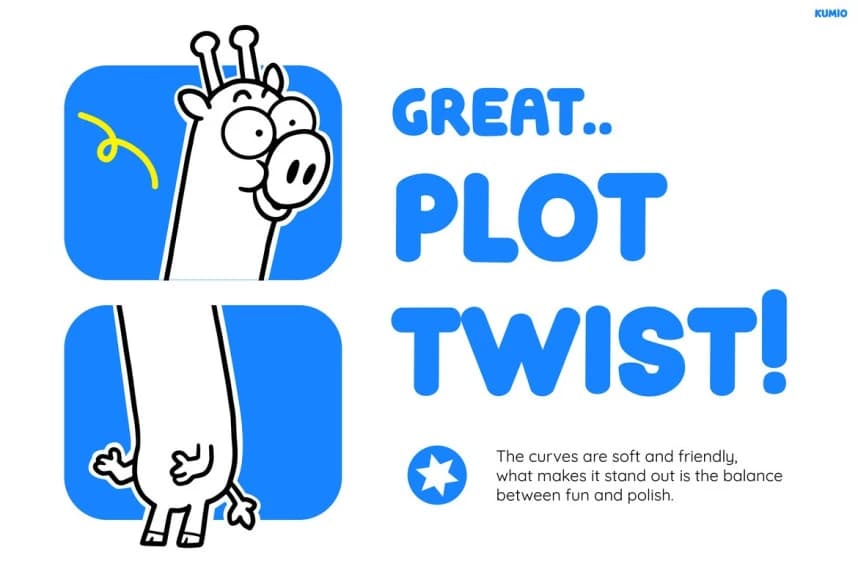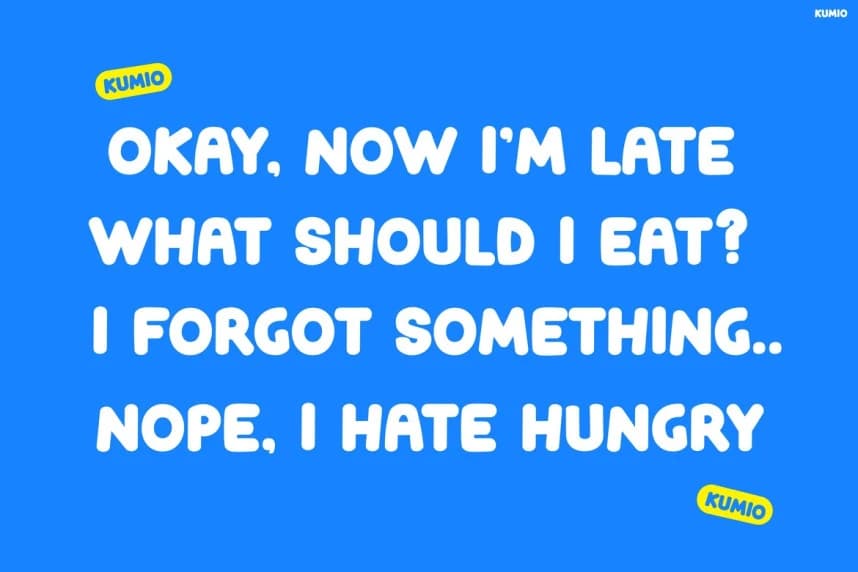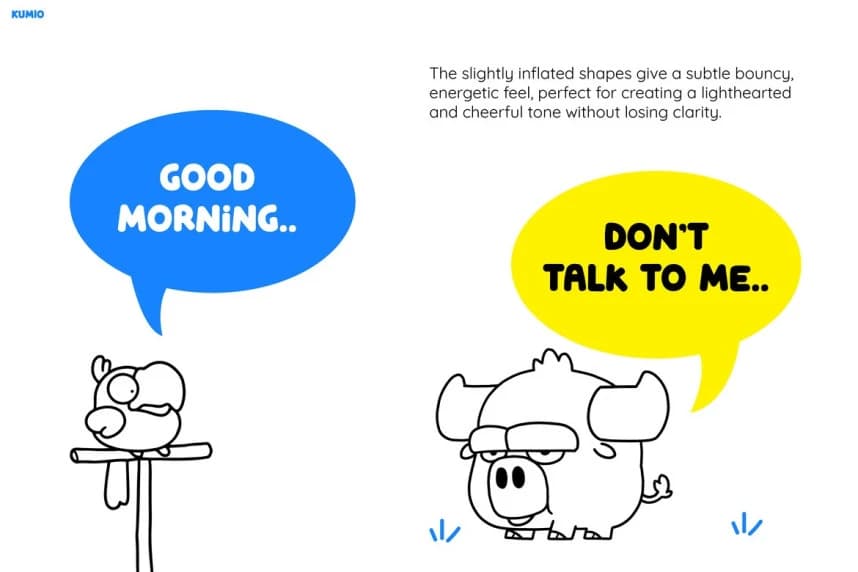
Kumio Display Font
Kumio Display Font brings a bold, bubbly personality that instantly grabs attention, while also delivering a fun and friendly visual style. Moreover, its chunky shapes and smooth curves create a playful rhythm that feels alive in every letter.
Kumio Display